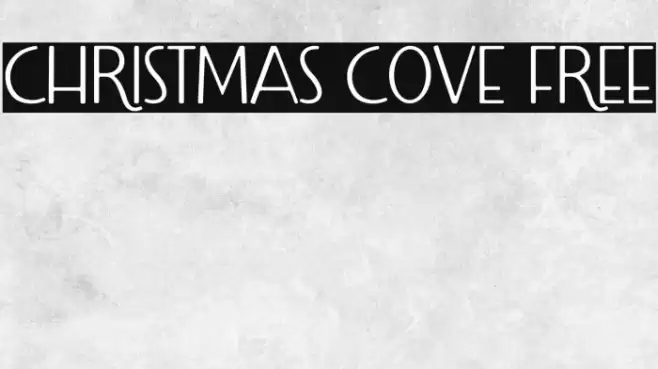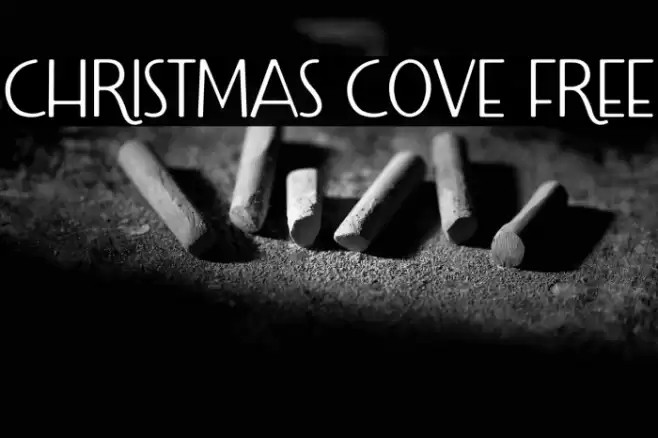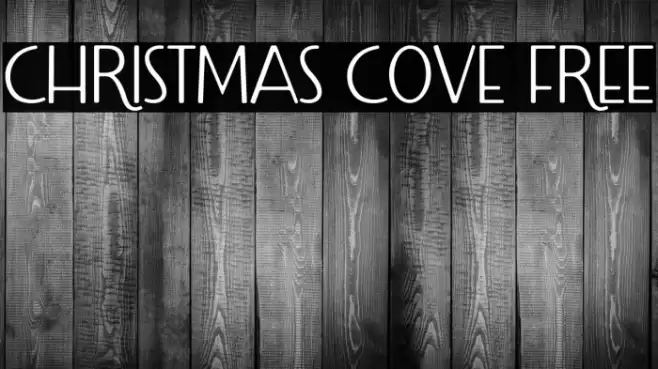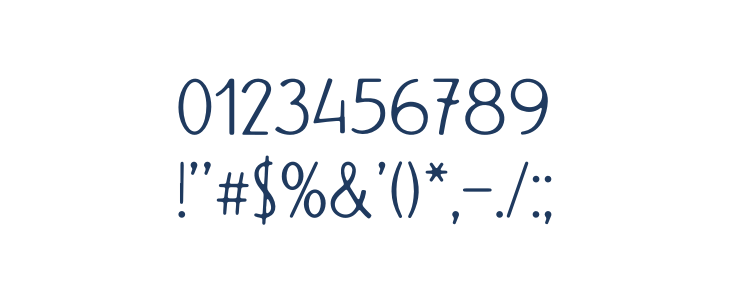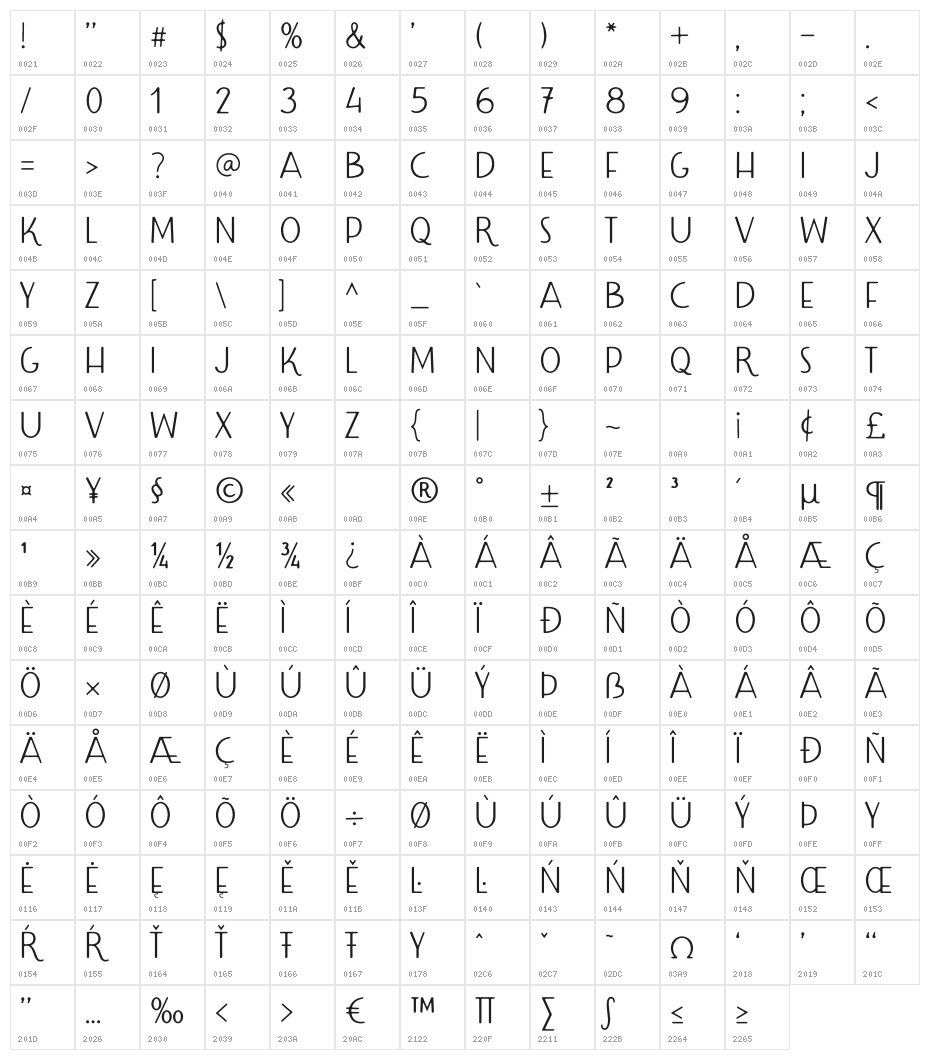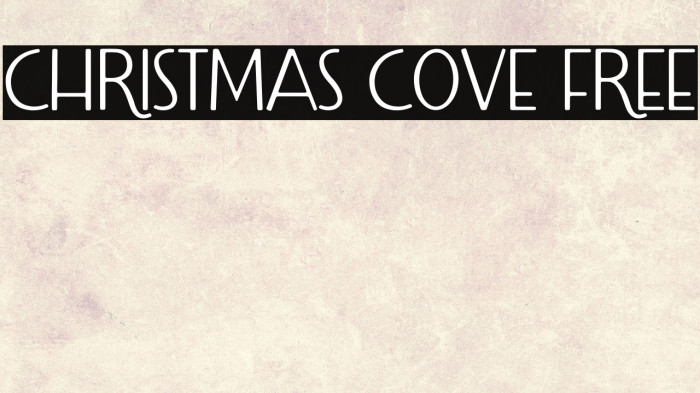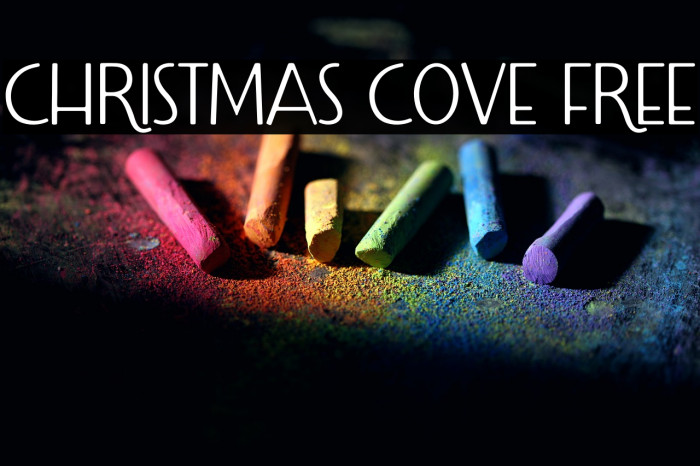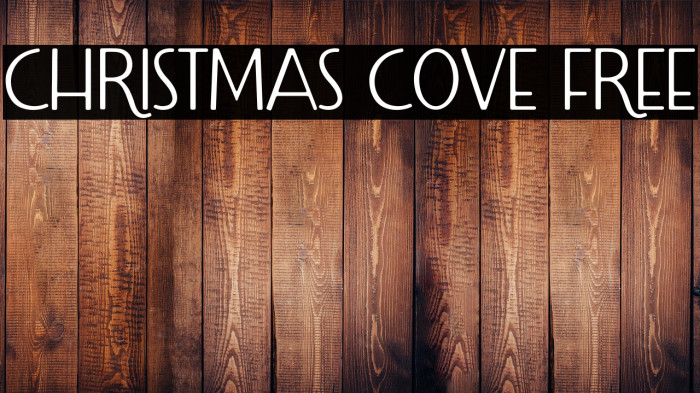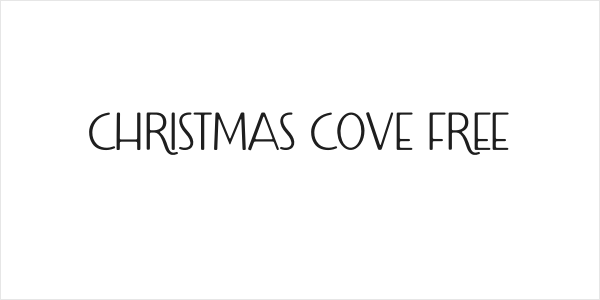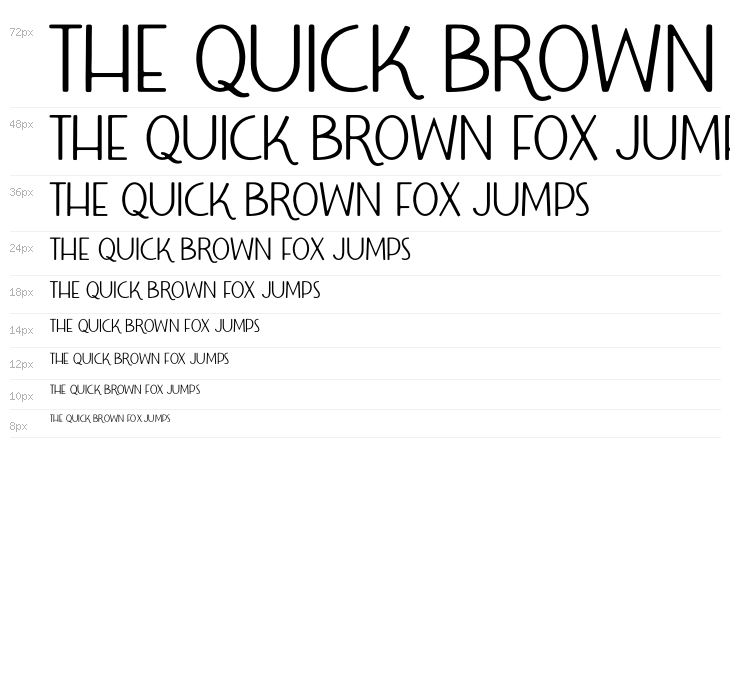
Christmas Cove Free Font
Christmas Cove Free Description
This font features a playful and whimsical style, characterized by its smooth, flowing lines and slightly irregular shapes. The letters are tall and narrow, giving it an elegant yet casual appearance. The uppercase and lowercase letters maintain a consistent style, with rounded edges and a slight tilt that adds to its charm. The numerals are clear and easy to read, matching the overall aesthetic of the alphabet. Special characters are included, maintaining the same playful design. This font is ideal for projects that require a touch of fun and creativity, such as holiday cards, invitations, or playful branding.
A playful and whimsical font with smooth, flowing lines and slightly irregular shapes from Uncategorized fonts.
- Overall Style: Playful, Whimsical